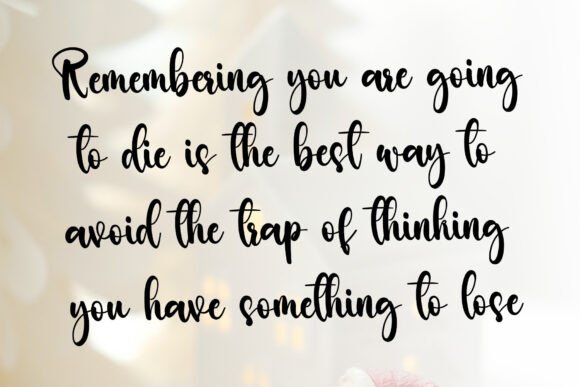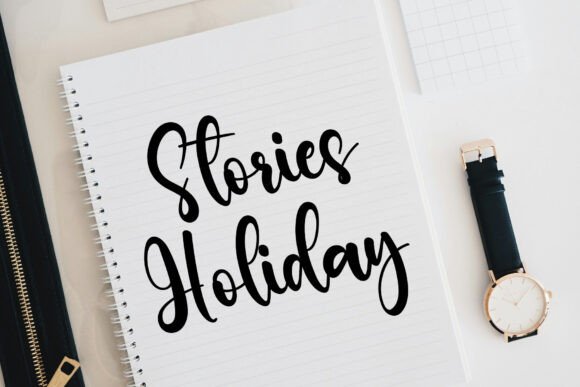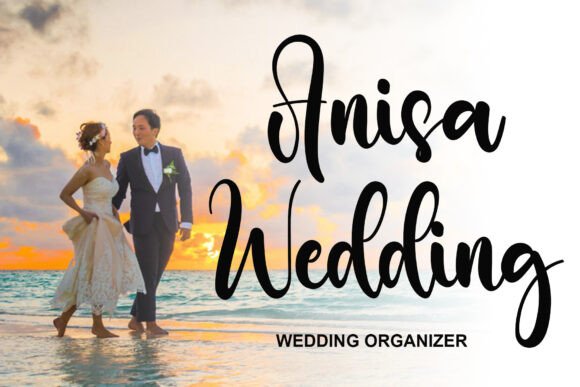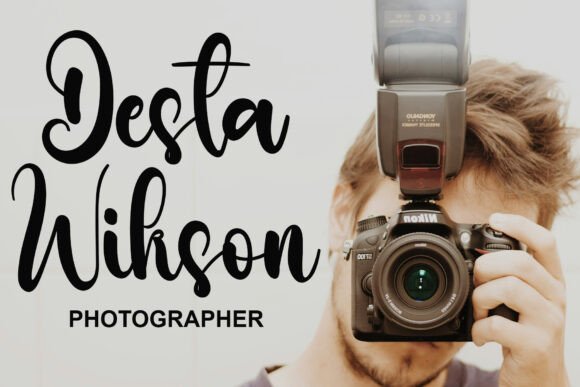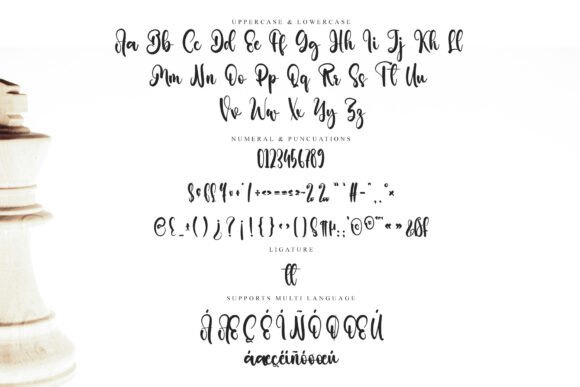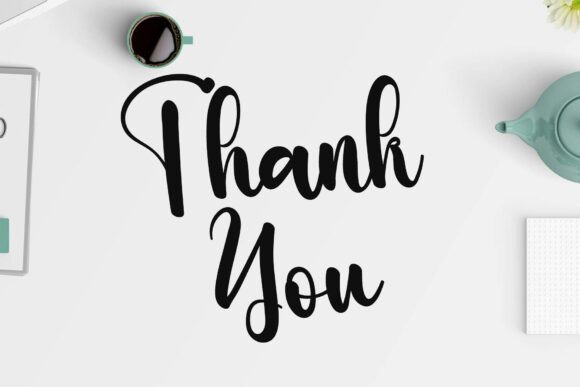
Introducing Backless: A Festive and Merry Typeface for the Holiday Season
The holiday season is upon us, and with it comes the joy of creating festive and merry designs that capture the spirit of the season. As designers and crafters, we’re always on the lookout for unique and eye-catching typography to add a touch of magic to our projects. That’s where Backless comes in – a delightful and whimsical typeface that’s perfect for bringing a cheerful and nostalgic ambiance to your words.
What is Backless?
Backless is a decorative typeface that’s specifically designed to evoke the feeling of the holiday season. With its intricate details and playful flair, this font is sure to add a touch of enchantment to your designs. Whether you’re creating greeting cards, gift tags, or holiday-themed projects, Backless is the perfect choice for bringing a sense of joy and festivity to your words.
Key Features of Backless
So, what makes Backless so special? Here are just a few of the key features that set this typeface apart:
- Decorative elements: Backless features intricate decorative elements that add a touch of whimsy and playfulness to your designs.
- Whimsical flair: This font has a distinctly festive feel, with a dash of nostalgia that’s sure to evoke memories of holidays past.
- Perfect for holiday projects: Whether you’re creating greeting cards, gift tags, or holiday-themed crafts, Backless is the perfect choice for adding a touch of seasonal magic to your designs.
Using Backless in Your Designs
So, how can you use Backless in your designs? The possibilities are endless! Here are a few ideas to get you started:
- Greeting cards: Add a touch of festive flair to your holiday greeting cards with Backless.
- Gift tags: Use Backless to create custom gift tags that are sure to delight.
- Holiday crafts: From scrapbooking to paper crafting, Backless is the perfect choice for adding a touch of holiday magic to your projects.
- Social media graphics: Use Backless to create eye-catching social media graphics that capture the spirit of the holiday season.
Tips for Getting the Most Out of Backless
To get the most out of Backless, here are a few tips to keep in mind:
- Experiment with colors: Backless looks great in a range of colors, from traditional holiday hues like red and green to more modern shades like metallic silver and gold.
- Mix and match: Don’t be afraid to mix and match Backless with other typefaces and design elements to create a unique and eye-catching look.
- Pay attention to spacing: To get the most out of Backless, make sure to pay attention to spacing and kerning – this will help to ensure that your text looks clean and easy to read.
Backless is a truly special typeface that’s perfect for capturing the spirit of the holiday season. With its decorative elements, whimsical flair, and festive feel, it’s the perfect choice for designers and crafters looking to add a touch of magic to their projects. Whether you’re creating greeting cards, gift tags, or holiday-themed crafts, Backless is sure to bring a cheerful and nostalgic ambiance to your words. So why wait? Download Backless today and start adding a touch of holiday magic to your designs!
- Font Style: Decorative, Script